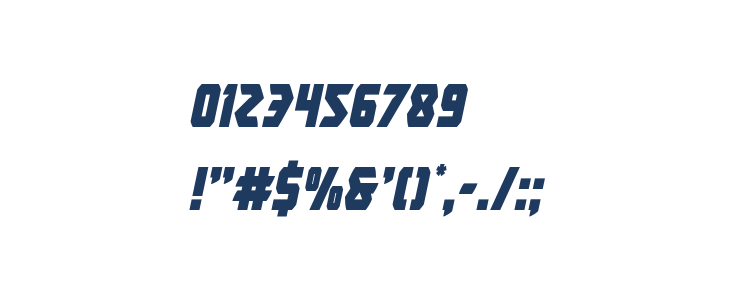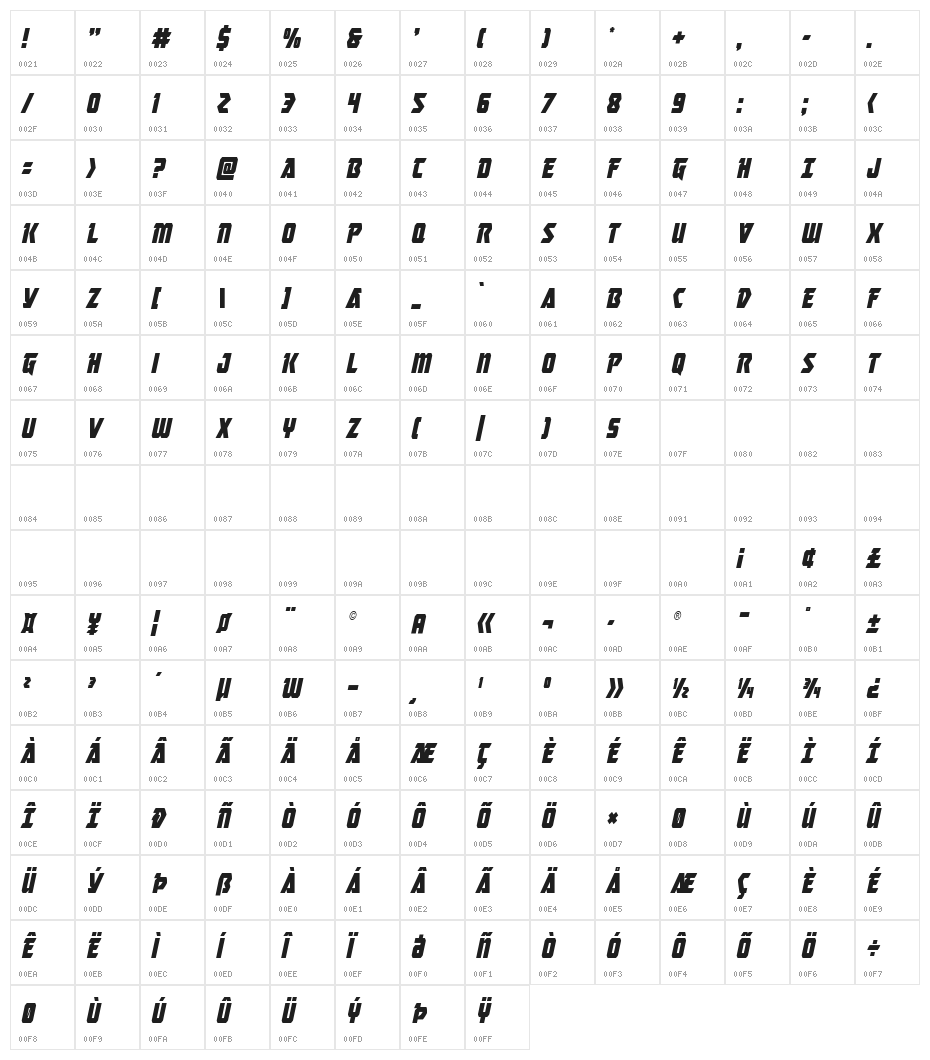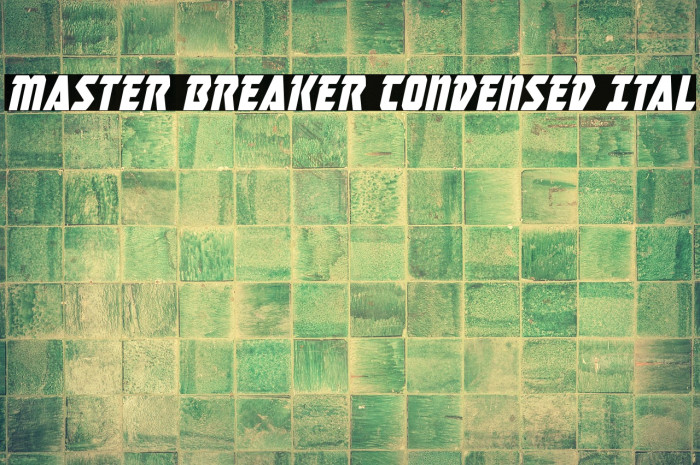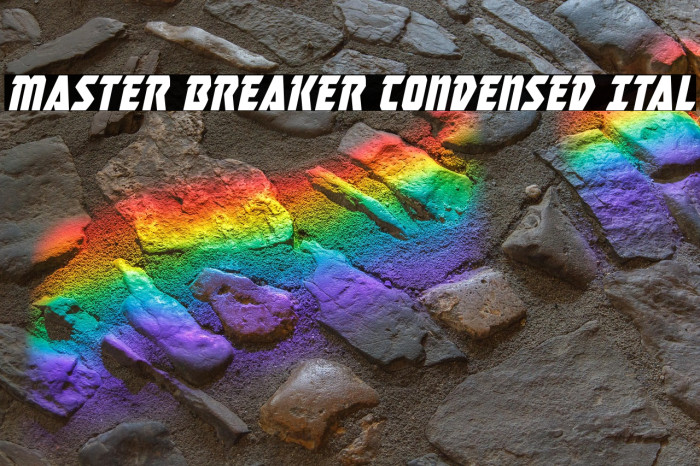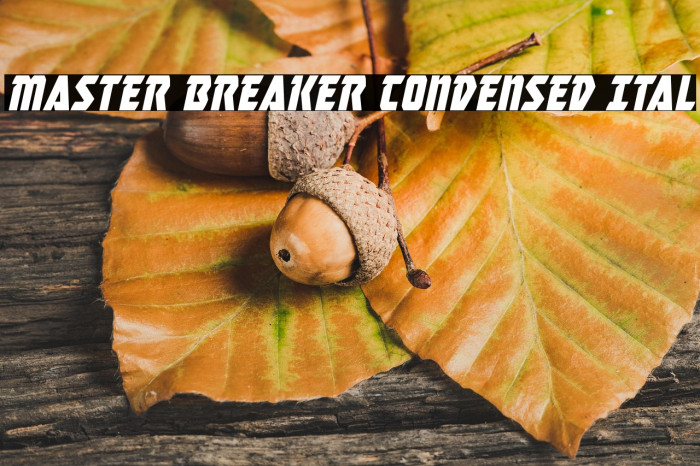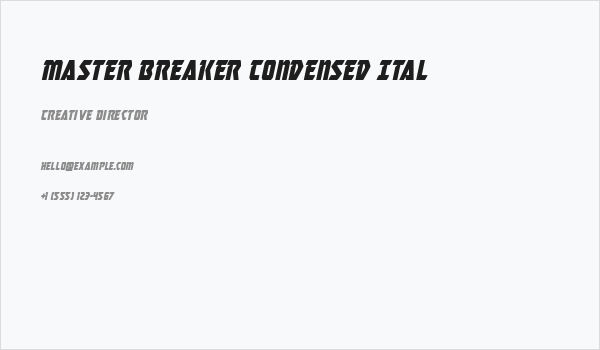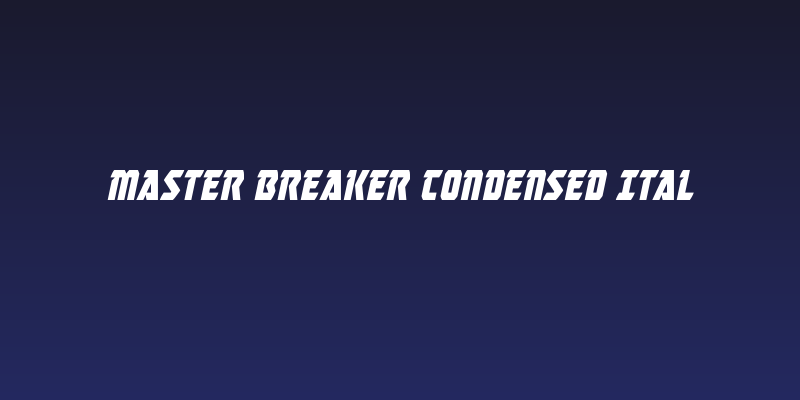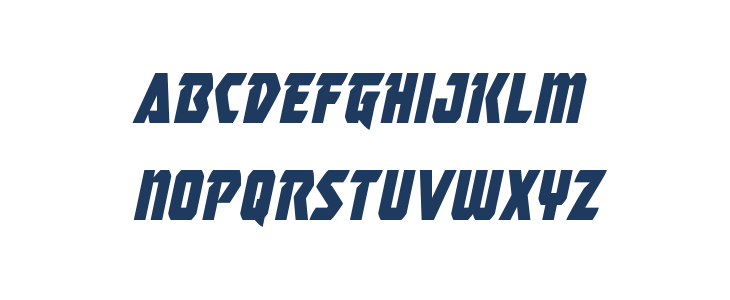
Master Breaker Condensed Ital Font
Master Breaker Condensed Ital Description
This font features a bold and dynamic style with a condensed structure, giving it a strong and impactful appearance. The italicized slant adds a sense of motion and energy, making it ideal for attention-grabbing designs. The characters are sharply angled with a modern, edgy look, and the consistent stroke width throughout the font provides a uniform and cohesive feel. The uppercase letters are particularly striking, with a geometric influence that enhances their boldness. The numbers and special characters maintain the same stylistic elements, ensuring versatility across different uses.